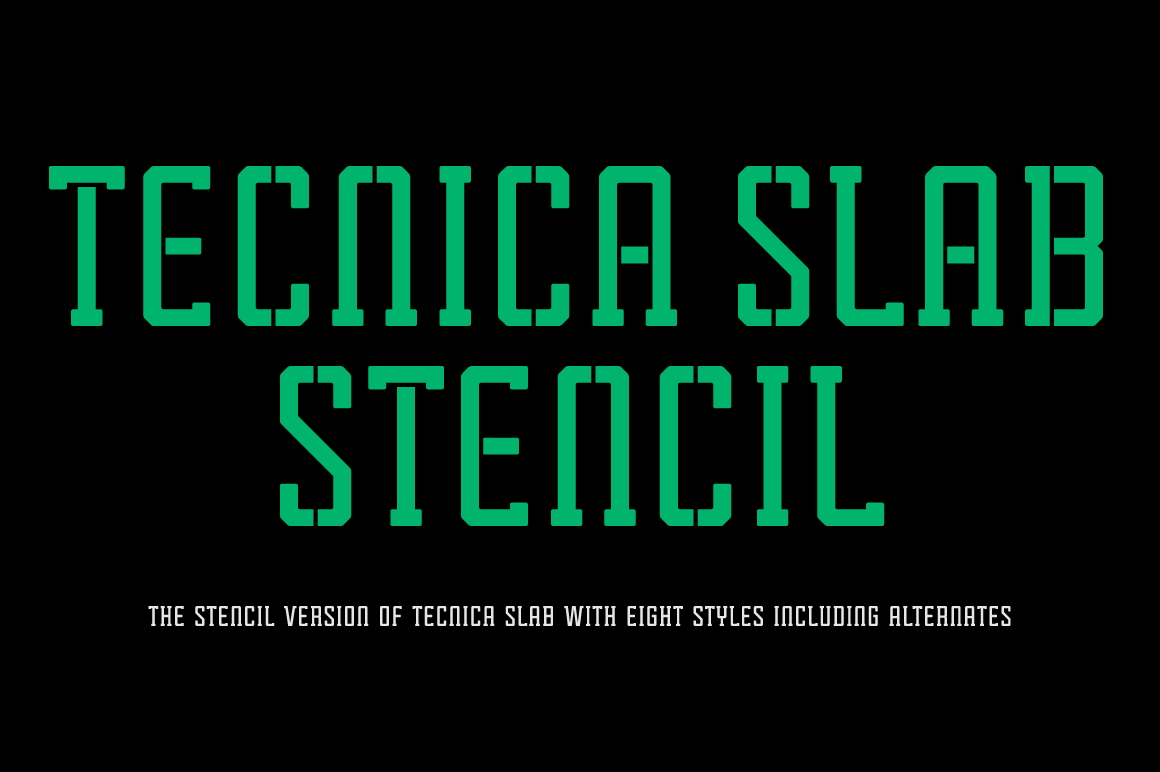
Tecnica Slab Stencil Font Family
Designer: Pablo Balcells
Design date: 2014
Tecnica Slab Stencil font family is the stencil version of Tecnica Slab font family, it has been designed for Graviton Font Foundry by Pablo Balcells in 2014.
Tecnica Slab Stencil consists of 8 styles. The 4 “Stencil 1” styles contain a narrow stem for big sizes type and/or rigid materials printing, and the 4 “Stencil 2” styles contain a wide stem for small sizes type and/or light materials printing.